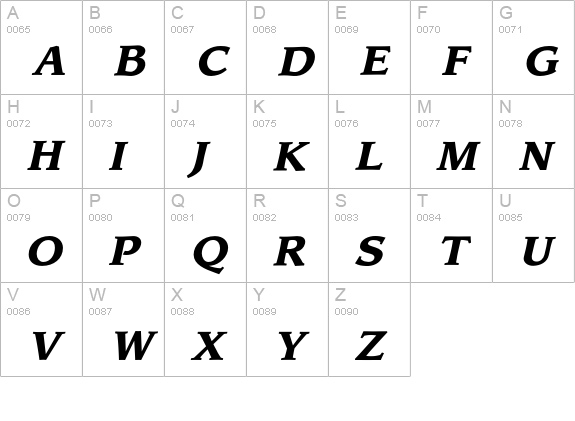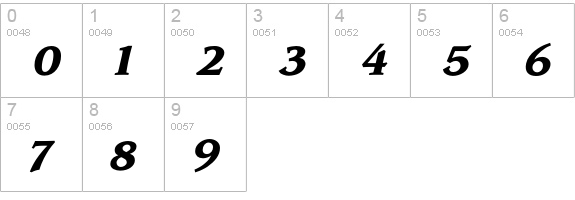
LeawoodBoldItalic Font Details
Introducing LeawoodBoldItalic, a captivating and elegant font that effortlessly combines boldness with a touch of whimsical italics. This modern typeface showcases a unique blend of sharp lines and graceful curves, making it perfect for adding a touch of sophistication to any design project. LeawoodBoldItalic is a versatile font that is sure to make a statement in any application. Whether used for headlines, logos, posters, or even body text, this font exudes confidence and style. Its bold weight commands attention, while the subtle italic slant adds a hint of playfulness and charm. But what makes LeawoodBoldItalic truly remarkable is that it is freely available to download at FontsMarket.com. Yes, you read that right - this extraordinary font can be yours at no cost. Now, you can elevate your designs without breaking the bank. So why wait? Go ahead and grab your copy of LeawoodBoldItalic today, and let your creativity soar to new heights.